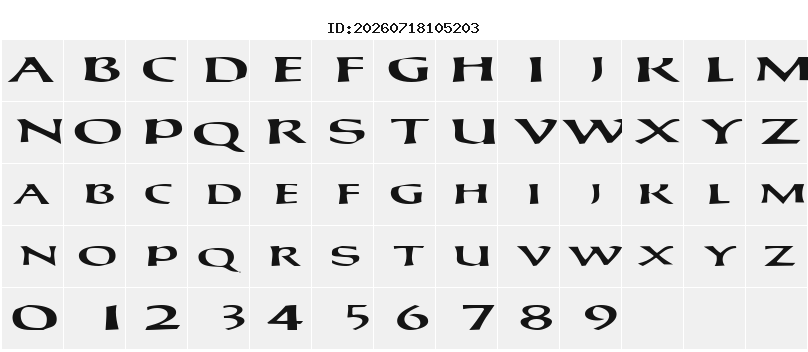
CayaugaSCapsSSK Preview
• Font Name: CayaugaSCapsSSK
About CayaugaSCapsSSK.ttf
CayaugaSCapsSSK.ttf is a modern, elegant sans-serif font designed for ultimate readability and visual harmony. Perfect for branding, headlines, web design, and print materials.